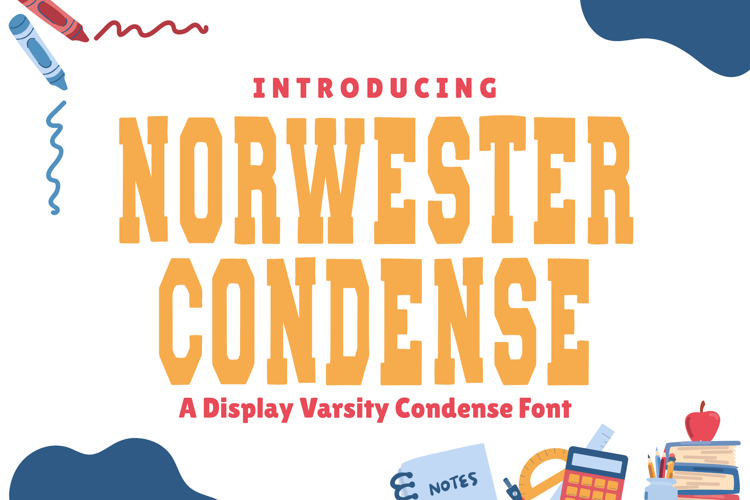
Norwester Condensed - Sans Serif Font
Norwester Condense
Norwester is a bold, condensed sans serif font designed with clean lines, sharp edges, and an impactful presence. Its strong all-caps style and narrow letterforms make it perfect for designs that demand clarity, authority, and athletic-inspired energy.
This typeface is widely used for varsity-style graphics, sports jerseys, logos, and headline posters, but its modern condensed look also works seamlessly in branding and editorial layouts.
• Condensed All-Caps Typeface with strong, geometric shapes
• Bold and impactful design for posters, sports branding, and logos
• Uppercase letters, numbers, punctuation, and multilingual support
• Varsity & collegiate designs
• Athletic logos & team jerseys
• Posters, signage & event flyers
• Modern branding & editorial headlines
• Merchandise & packaging